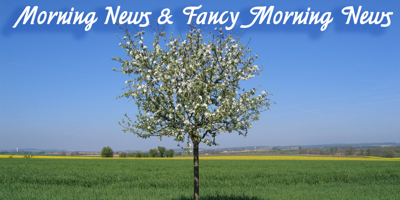
Miss AmyLynn Font Free Download is a graceful and elegant script typeface with a charming, hand-lettered style. Its flowing curves and delicate strokes make it perfect for projects that require a touch of femininity and sophistication. Ideal for invitations, branding, greeting cards, and logos, this font adds a personal, elegant touch to your designs.
The font’s refined and fluid design ensures it stands out in headlines or logos, while maintaining readability and visual appeal in longer text. Whether you're designing for a wedding, fashion brand, or any creative project that requires an elegant, handwritten feel, Miss AmyLynn Font is a beautiful choice.
Incorporate Miss AmyLynn Font Free Download into your next project to bring an elegant, handwritten style that adds a unique and sophisticated touch to your designs.